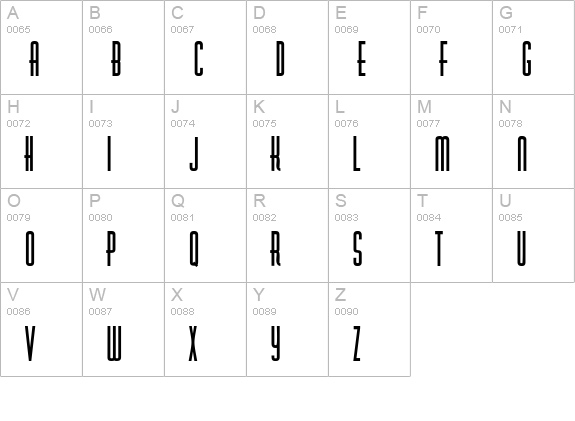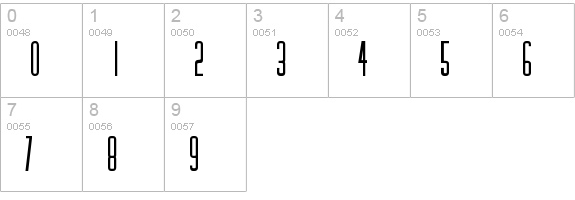
RobaloSCapsSSK Bold is a strong, high-contrast variant in the RobaloSCapsSSK typeface family \xE2\x80\x94 well suited to headlines, attention-grabbing titles, and strong calls-to-action.
RobaloSCapsSSK Bold font is a striking and bold typeface that exudes a sense of power and modernity. With its strong, clean lines and sharp edges, this font is perfect for making a statement in your designs. Whether you're working on a poster, logo, or website, RobaloSCapsSSK Bold will demand attention and leave a lasting impression. The best part is that RobaloSCapsSSK Bold font is available for free download at FontsMarket.com. You can easily add this versatile font to your collection and use it in both personal and commercial projects without any restrictions. So why wait? Elevate your designs with RobaloSCapsSSK Bold today!